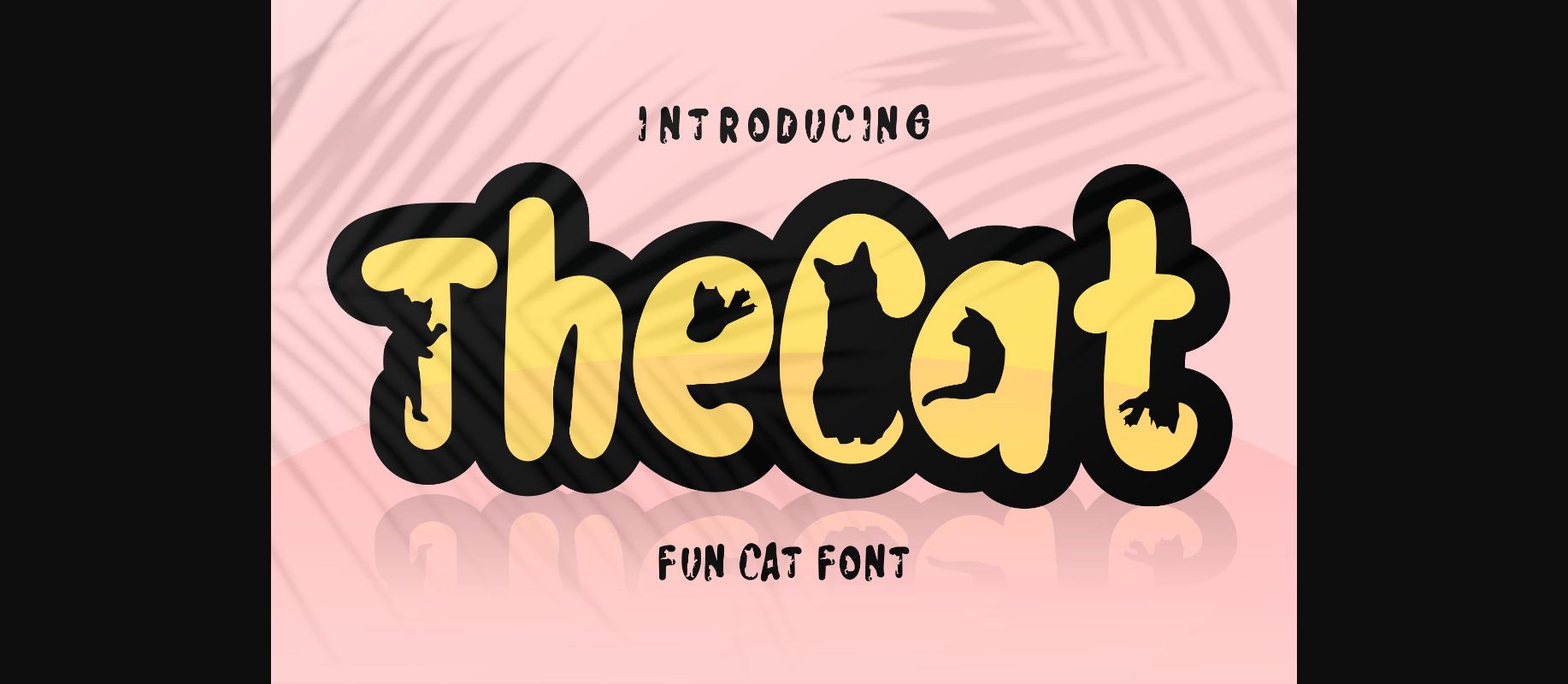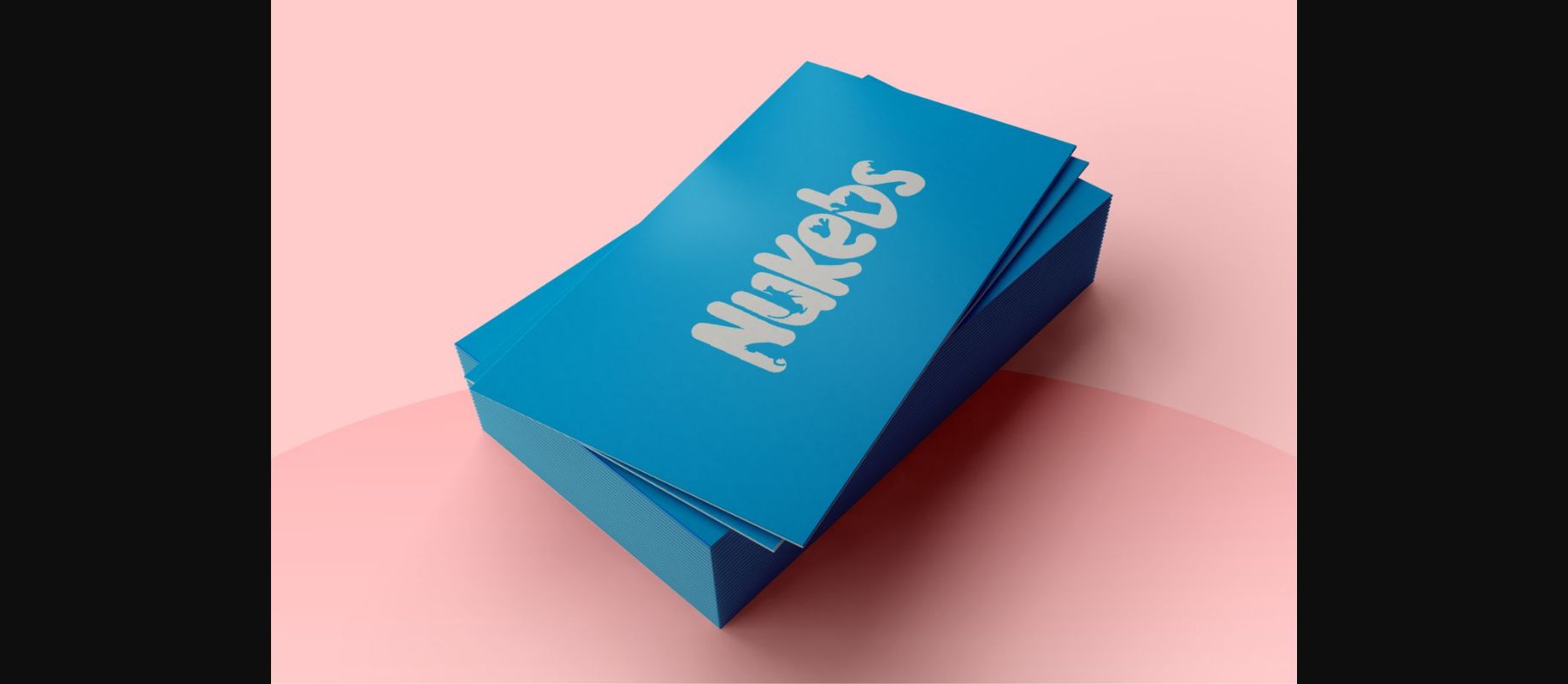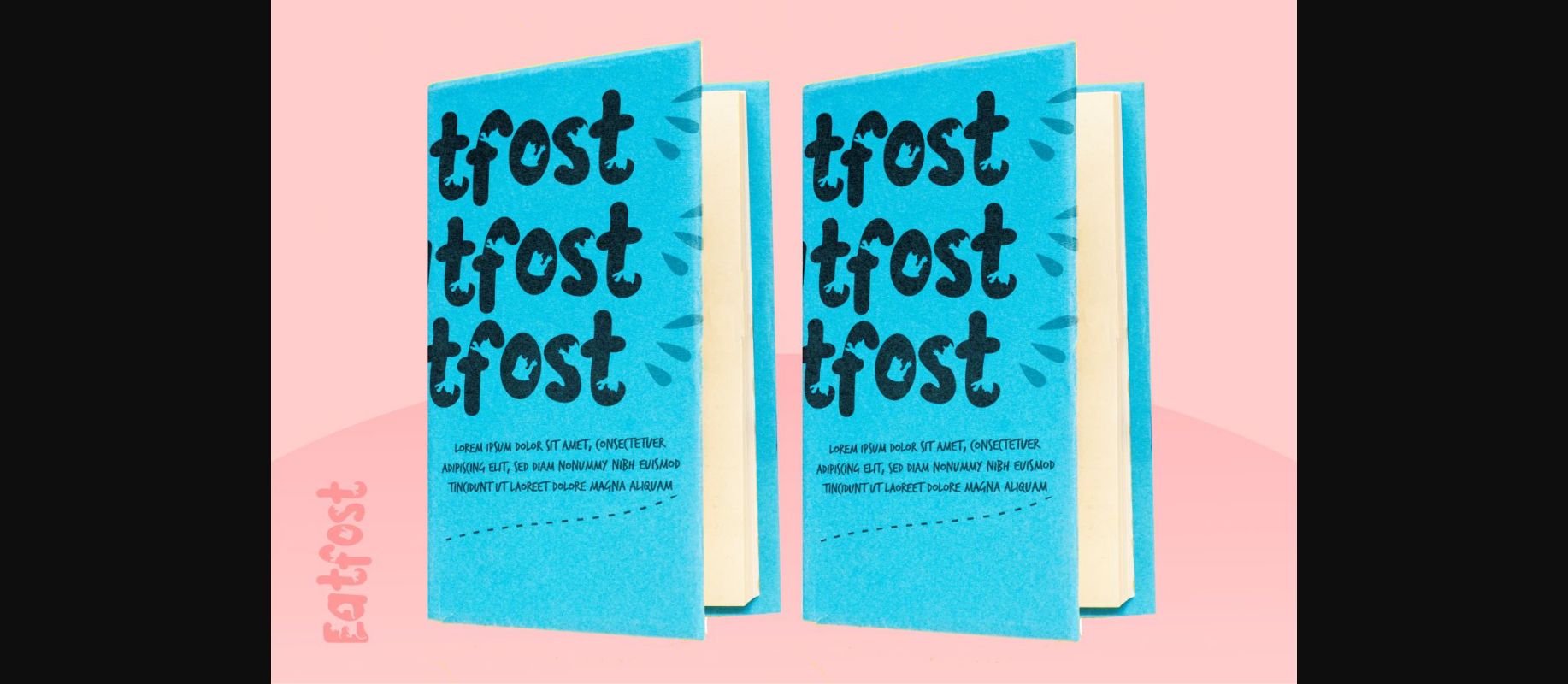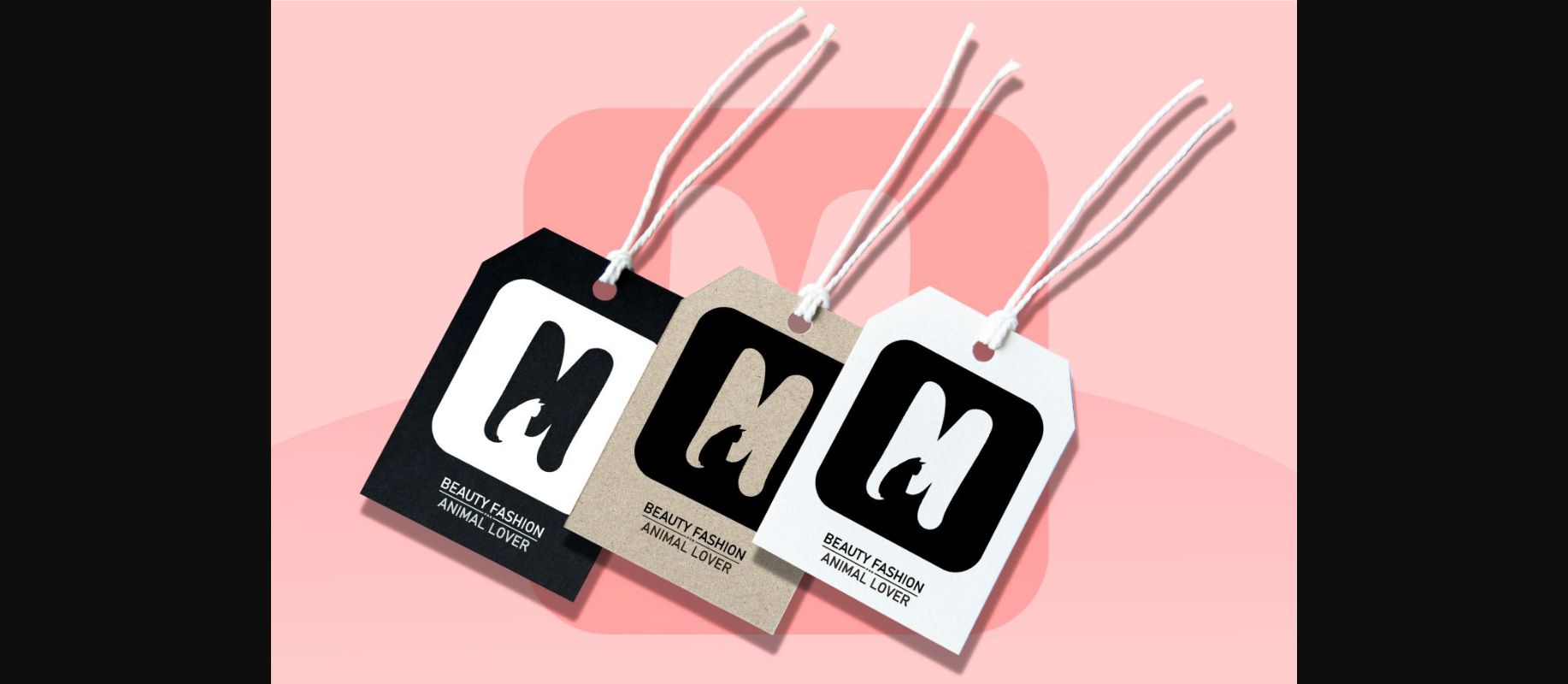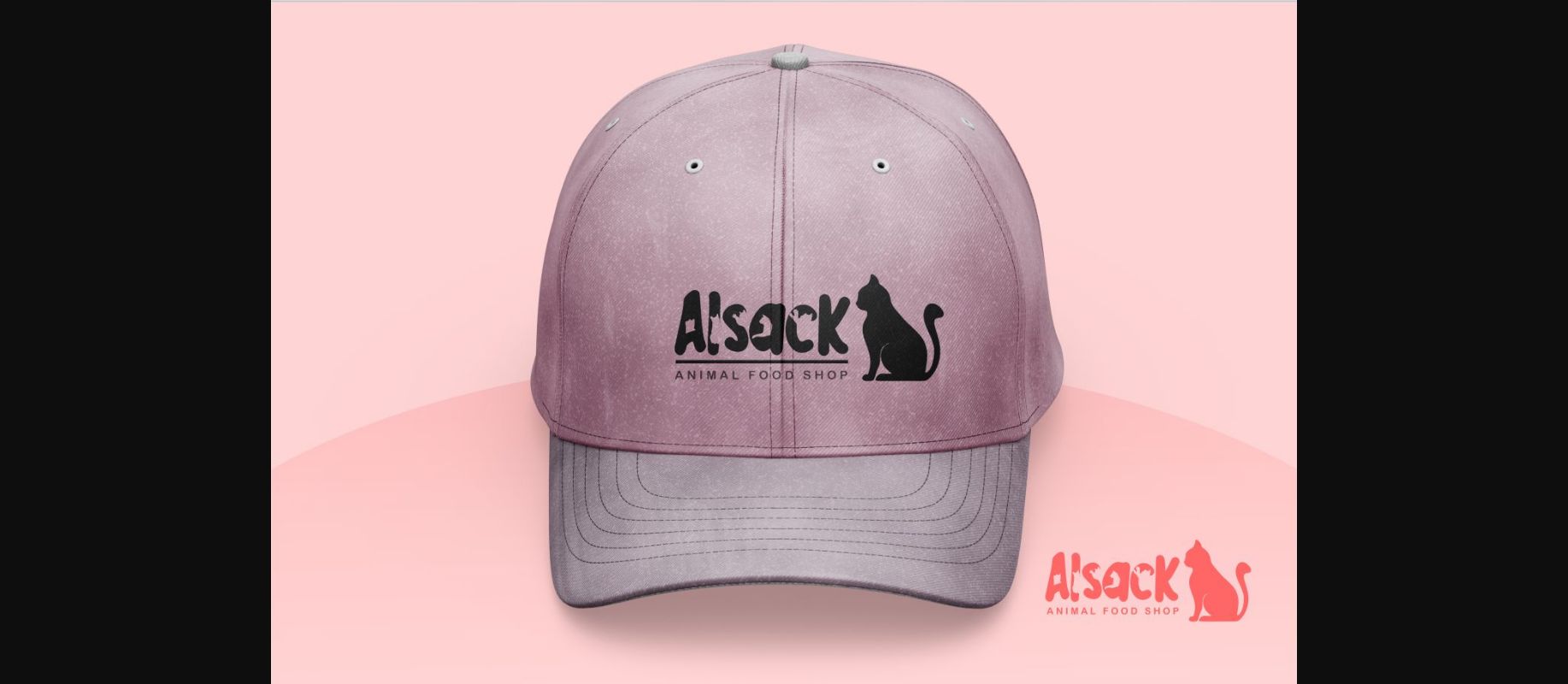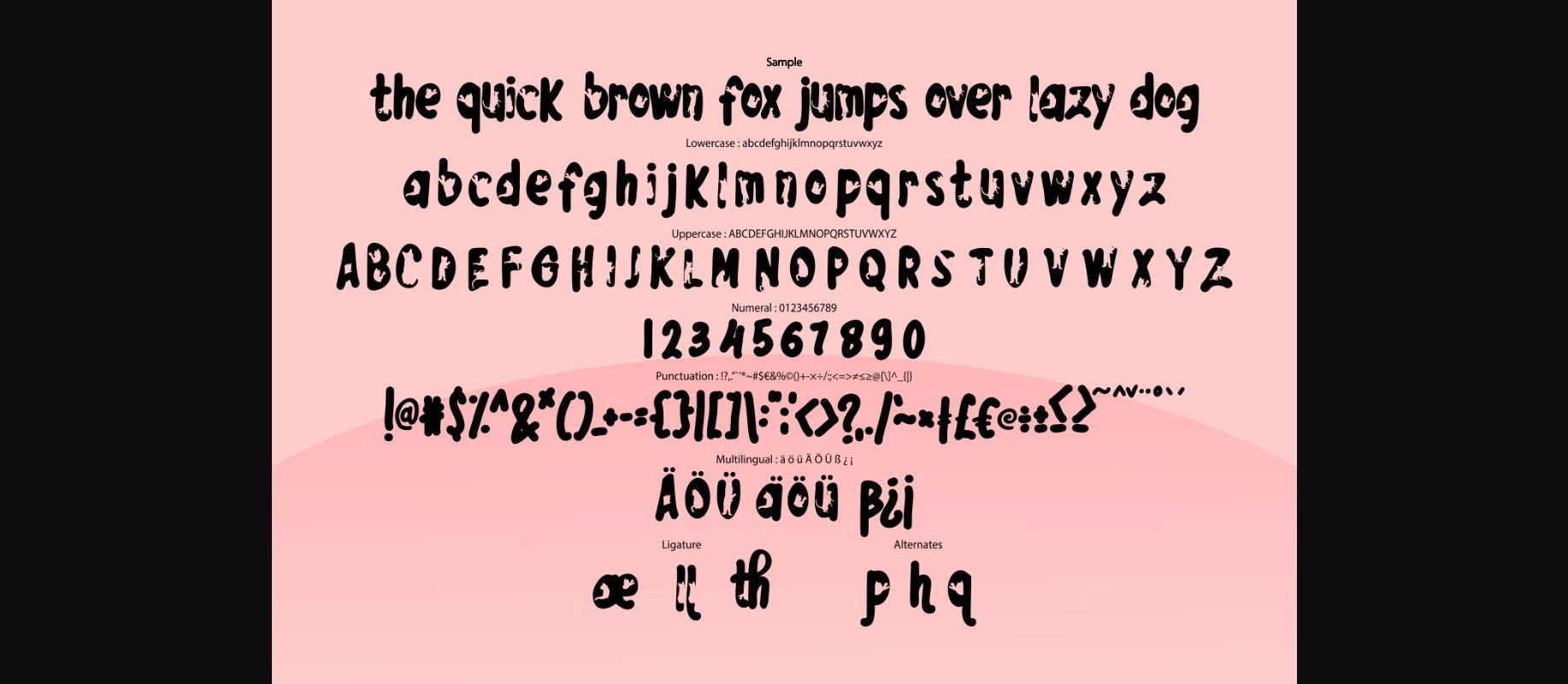
The Cat Font
About The Cat Font
The Cat is an incredibly unique and interesting decorative font, featuring cat ornaments. Fall in love with its incredibly versatile style and use it to create spectacular designs!